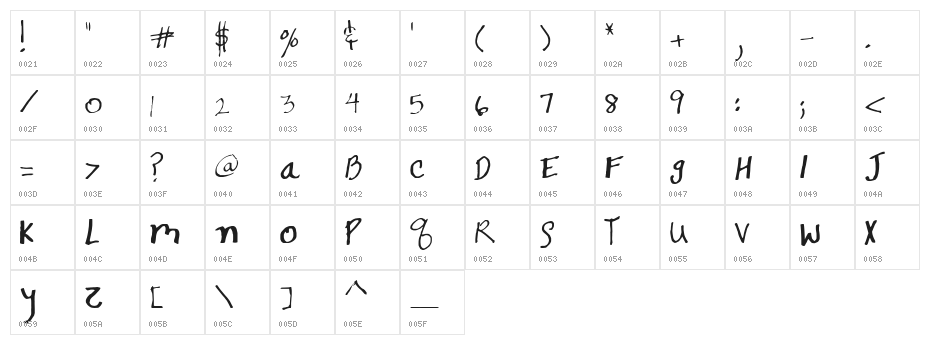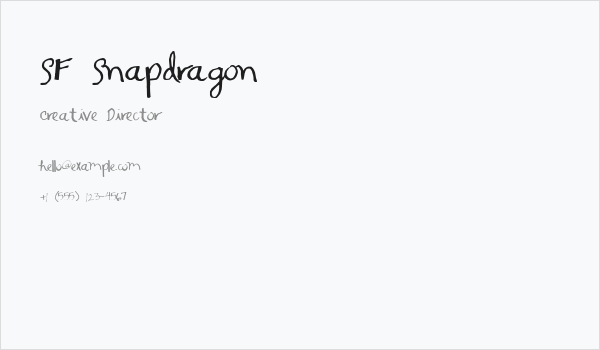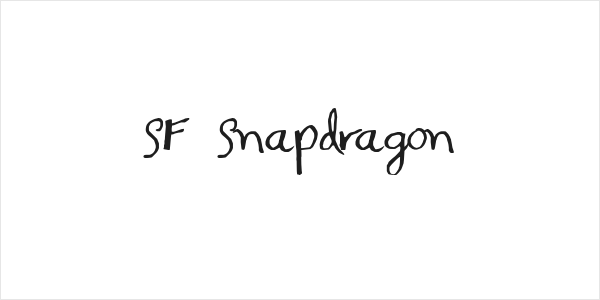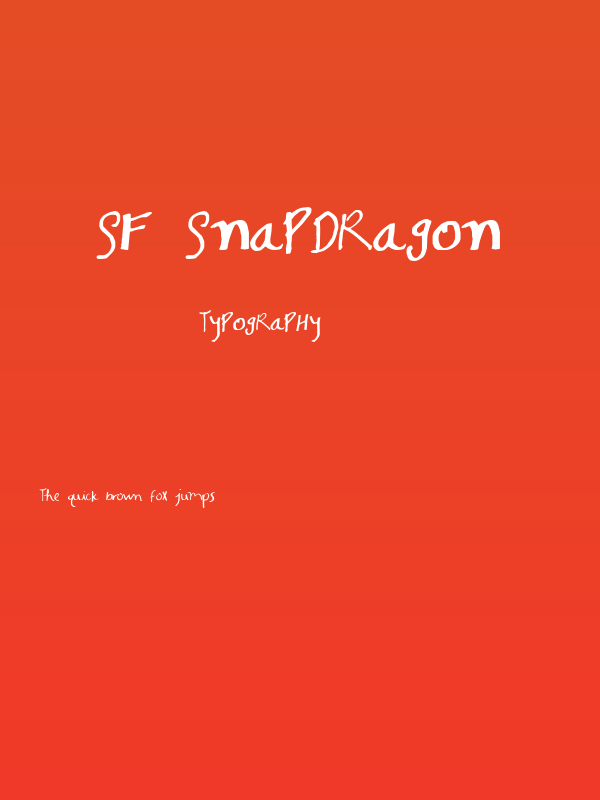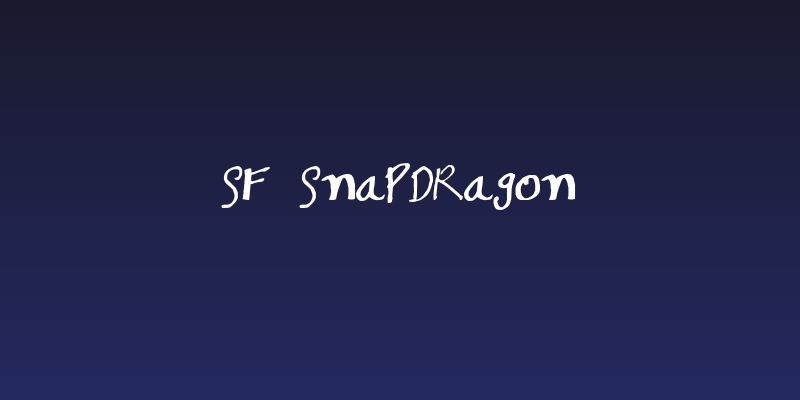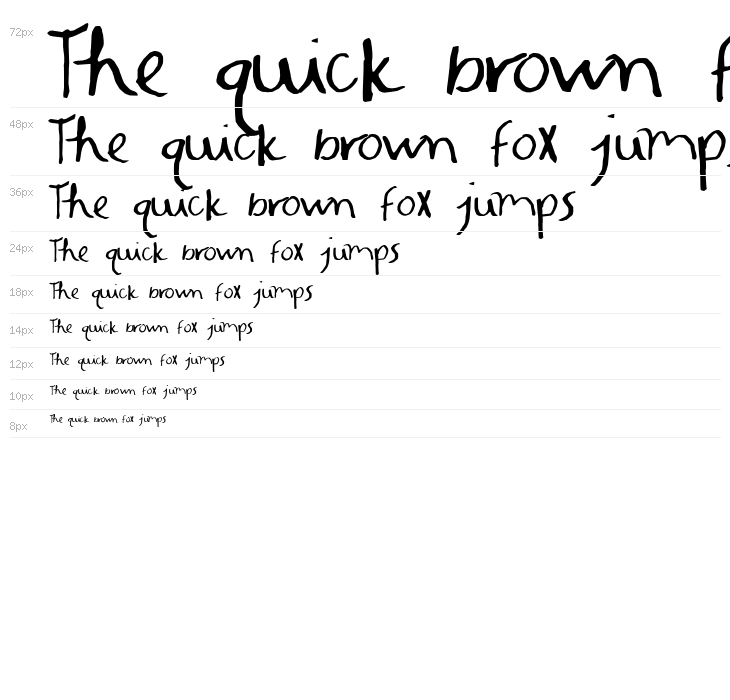
SF Snapdragon Font
SF Snapdragon Description
This font features a dynamic and expressive handwritten style, characterized by its irregular strokes and playful curves. The letters exhibit a natural flow, with varying thickness that adds a sense of movement and energy. Uppercase letters are bold and prominent, while lowercase letters maintain a consistent, lively rhythm. The numerals and special characters follow the same whimsical design, making the font suitable for creative and informal applications. Its unique personality makes it stand out, offering a fresh and artistic touch to any project.
| Use Case | Headlines, Logos, Artistic projects |
| Proposed Projects | Ideal for greeting cards, invitations, artistic posters, and branding that requires a personal touch. |